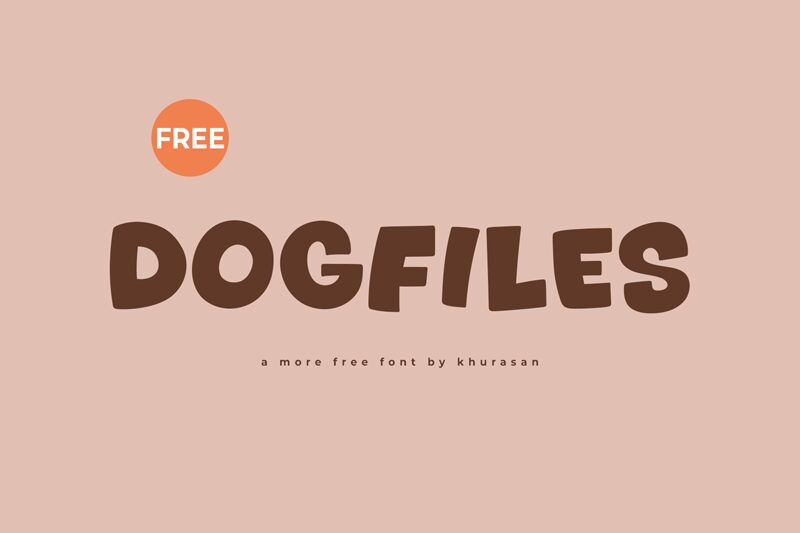
Dogfiles
Dogfiles is a bold, cartoon-style display font that exudes a playful and energetic personality. Designed by Khurasan, this typeface features rounded, exaggerated letterforms that immediately grab attention. The thick, weighted strokes and quirky character shapes lend a distinctly whimsical charm, making Dogfiles an ideal choice for children's media, branding, and casual digital designs.
Its versatility shines through in its ability to convey a sense of fun and lightheartedness, whether used for headlines, logos, or illustrative text.